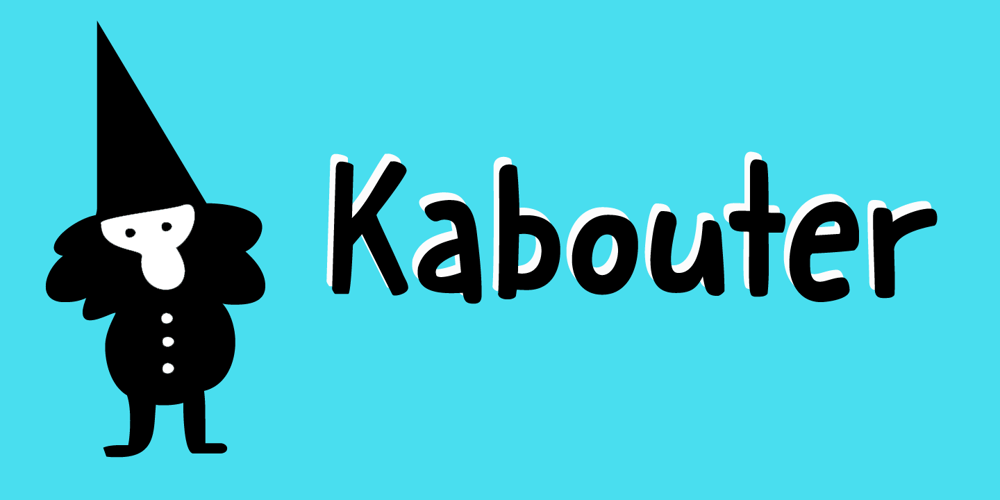
Kabouter
Kabouter font
Kabouter Font Family was designed by David Kerkhoff and published by Hanoded. Kabouter contains 4 styles and family package options. Kabouter (kaːˈbɑu̯.tər) means ‘gnome’ in Dutch. I have no particular love for gnomes (even though I have a font called Garden Gnome…), but this font had a fairytale feeling to it and the name looked good. Kabouter is a happy display font. It is fun, bouncy and quirky. Use it for your book covers, toy-packaging and home made apple sauce labels. Besides that, you now know how to say gnome in Dutch, which will leave your friends astounded! 😉